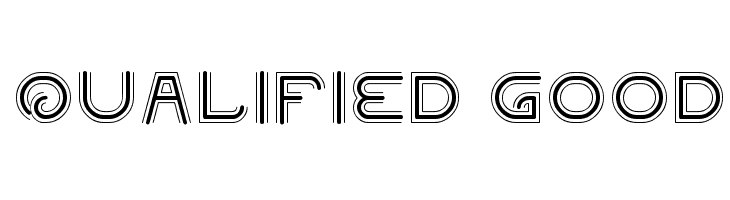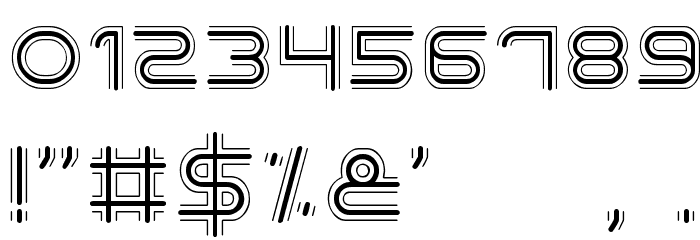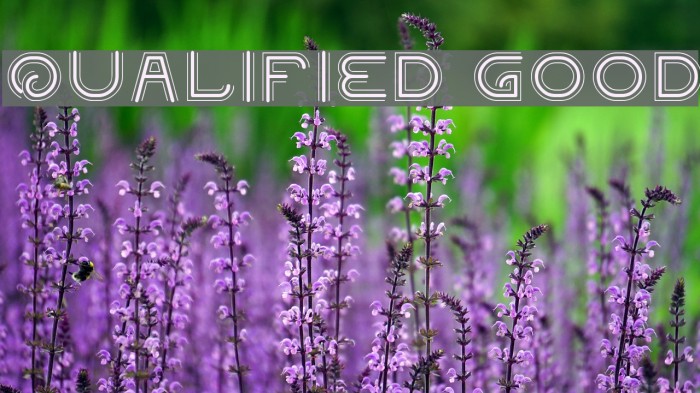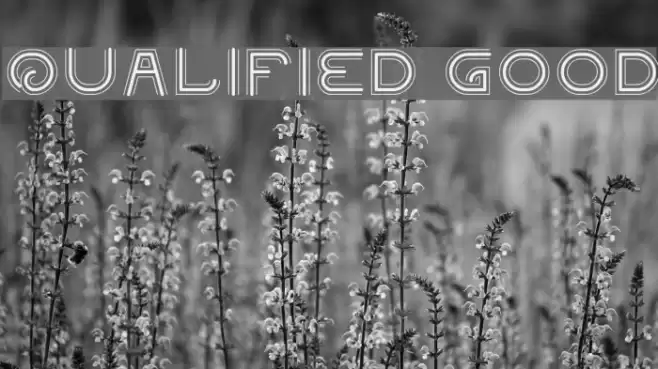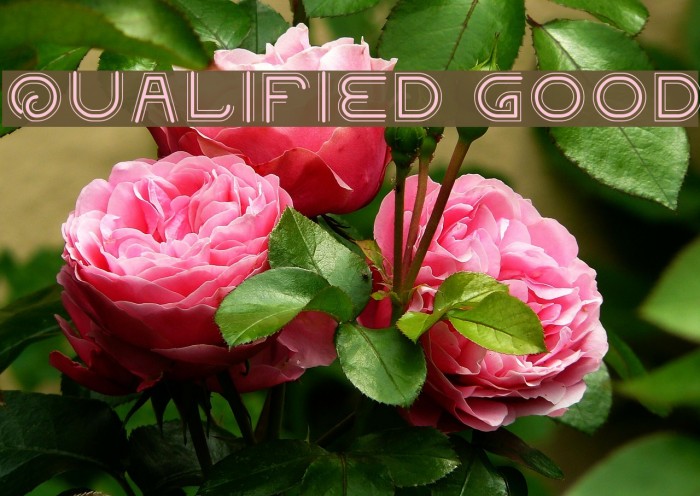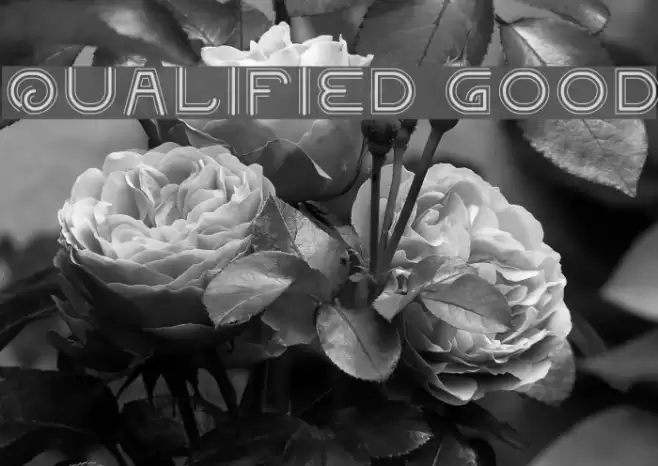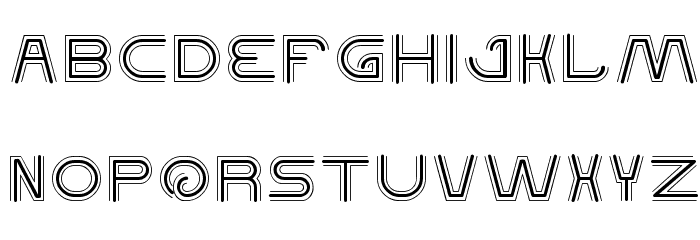
QUALIFIED GOOD Font
This font features a unique, modern design characterized by its geometric and linear elements. Each character is composed of multiple parallel lines, creating a layered effect that adds depth and dimension. The uppercase and lowercase letters maintain a consistent style, with rounded edges and a futuristic aesthetic. The numbers and special characters follow the same design principles, ensuring a cohesive look across all elements. This font's distinct style makes it suitable for creative and contemporary projects, where a bold and eye-catching typeface is desired.
A modern, geometric font with layered, parallel lines for a futuristic look.
• Proposed Projects: Ideal for branding, posters, album covers, and digital media where a modern and striking appearance is needed.
• Category: Decorative/Display
• Bold: Yes
• Italic: No
• Weight: Bold
• Width: Normal
• Character Spacing: Normal
• Contrast: Low
• Overall Style: Modern
• Use Case: Headlines, Logos, Posters